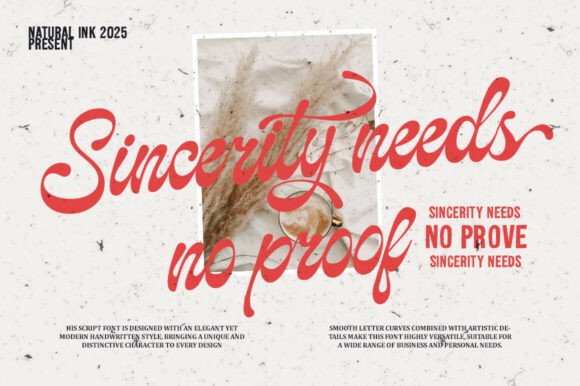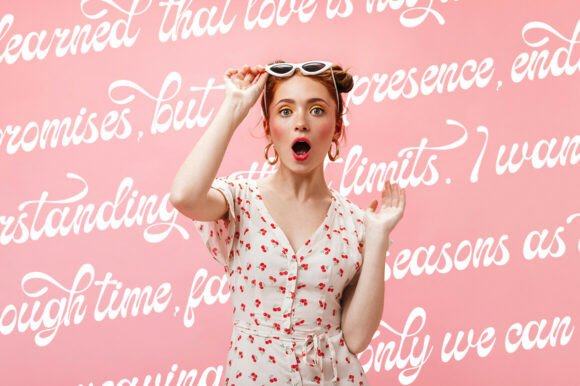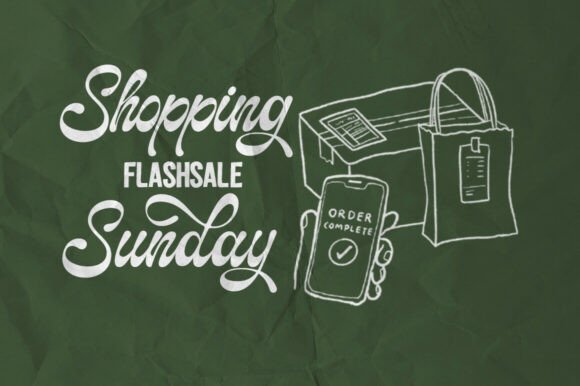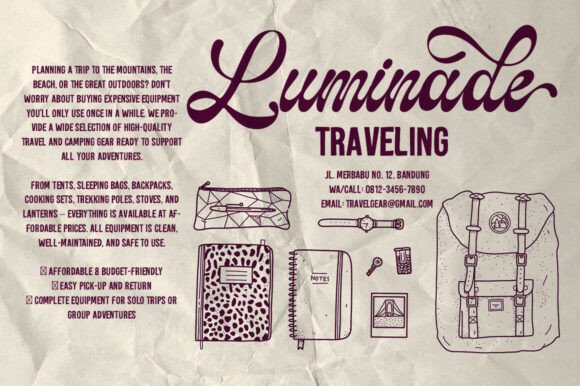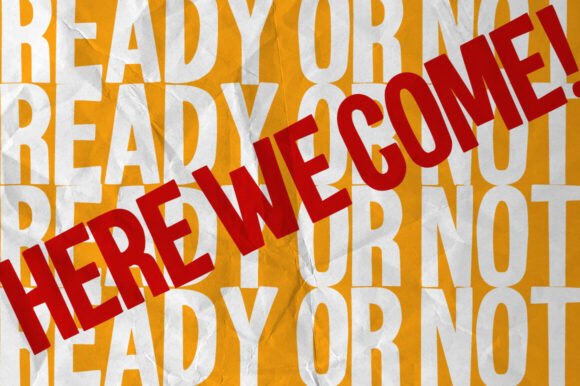
Unveiling Gilosta Surfing Duo Font: Elevate Your Designs with Elegance and Warmth
In the realm of typography, few fonts manage to strike a balance between contemporary flair and timeless elegance. Gilosta Surfing Duo Font, however, achieves this delicate balance with remarkable finesse. This artistically hand-forged script font, paired with a complementary handwritten sans font, is designed to infuse every creative project with a sense of sophistication, warmth, and personalized touch.
The Essence of Gilosta Surfing Script Font
Gilosta Surfing script font is the epitome of artistic craftsmanship. Its flowing traces, organic arcs, and meticulously polished details make it an impeccable choice for projects that demand high-impact visuals. From logos that require a touch of elegance to detailed invitations that set the tone for memorable events, strategic branding that seeks to leave a lasting impression, engaging social media posts that capture the audience’s attention, to artistic editorial designs that tell a story, Gilosta Surfing script font is versatile and adaptable.
What sets Gilosta Surfing apart is its unique blend of contemporary and timeless aesthetics. This fusion not only enhances its adaptability across a broad spectrum of visual styles but also allows designers to experiment with a wide range of creative projects. Whether you’re aiming for a modern look or a classic feel, Gilosta Surfing script font seamlessly adjusts to meet your design needs.
The Perfect Complement: Handwritten Sans Font
Understanding the importance of balance and contrast in typography, the Gilosta Surfing Duo Font package includes a bonus – a handwritten sans font. This sans font is not just an addition; it’s a carefully crafted companion that forms a seamless alliance with the script font. Its relaxed yet meticulous strokes introduce equilibrium and captivating contrast, adding depth and interest to any design.
Together, the Gilosta Surfing script and sans fonts form a symphony of typography. This dynamic duo is perfect for creating impactful headlines that grab attention, emotive quotes that resonate with the audience, or coherent brand identities that reflect a brand’s personality. The combination of the elegant script and the straightforward sans font offers a versatile typographic solution that caters to a wide array of design requirements.
Limitless Creative Possibilities
One of the most compelling advantages of the Gilosta Surfing Duo Font is the unlimited creative license it offers. Designers and crafters can create designs that are not only stylish but also personal and engaging. The duo’s flexibility makes it an ideal selection for a variety of projects, from desi-inspired designs that require a touch of elegance and tradition to modern digital content that demands freshness and creativity.
Why Choose Gilosta Surfing Duo Font?
- Elegance and Warmth: Infuse your projects with a sense of sophistication and warmth.
- Versatility: Suitable for a wide range of projects including logos, invitations, branding, social media posts, and editorial designs.
- Contemporary and Timeless: A unique blend of modern and classic aesthetics for broad adaptability.
- Dual Font Package: Includes a script font and a handwritten sans font for diverse design needs.
- Personalization: Offers the opportunity to create personalized and engaging designs.
Gilosta Surfing Duo Font stands out as a top choice for designers and crafters looking to elevate their projects with elegance, warmth, and a personal touch. Its artistic craftsmanship, versatility, and the inclusion of both a script and sans font make it a valuable addition to any design toolkit. Whether you’re working on high-impact logos, detailed invitations, or seeking to create coherent brand identities, Gilosta Surfing Duo Font offers the perfect blend of style, adaptability, and creative freedom.
Embrace the world of limitless creative possibilities with Gilosta Surfing Duo Font. Let this dynamic duo guide you in creating designs that are not only visually stunning but also deeply engaging and personal. Experience the difference that elegance, warmth, and versatility can make in your creative projects.